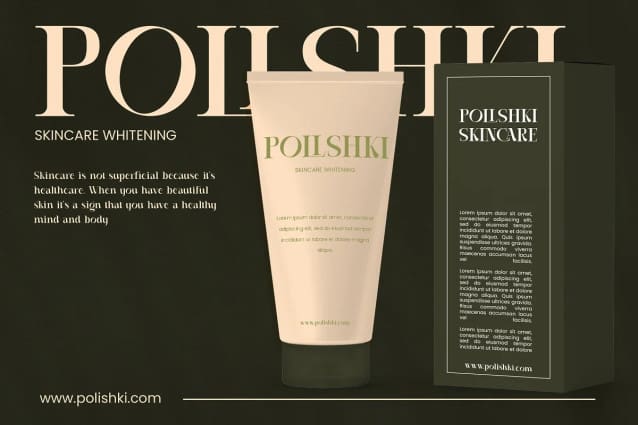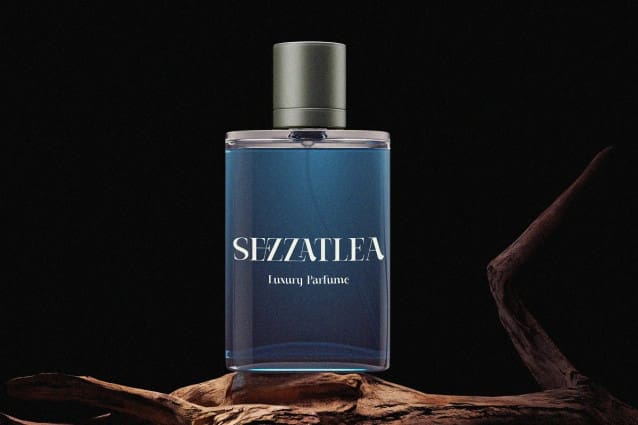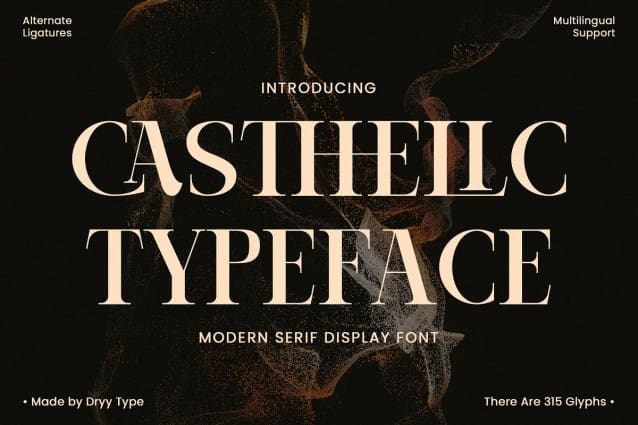
Casthelic Font
Casthelic Font, An aesthetic font that has a unique and elegant character to use. Casthelic is a beautiful and elegant serif Font. This font I created is meaningful & very versatile, it goes well with a variety of designs, elevating them to the highest level. Add this font to your favorite creative ideas and watch how it becomes real!